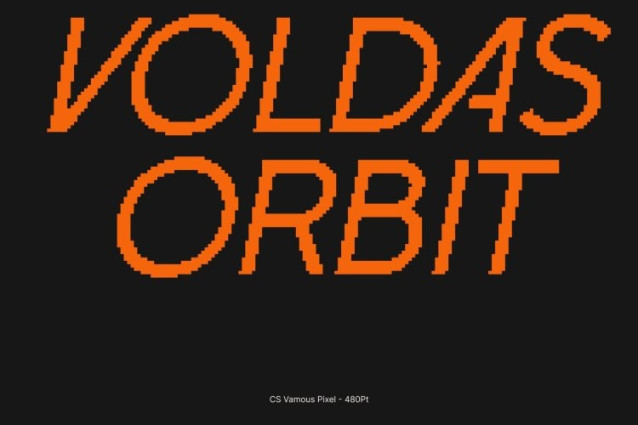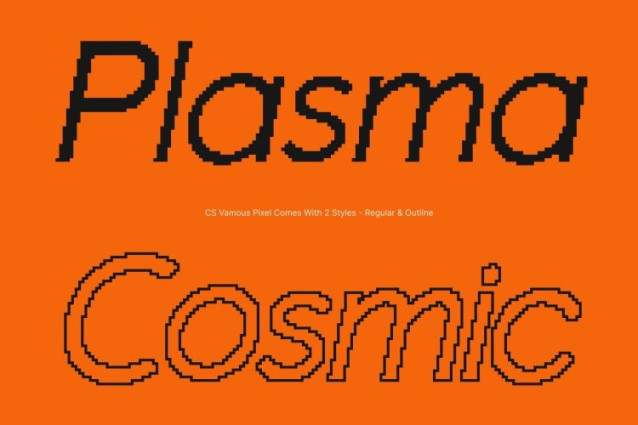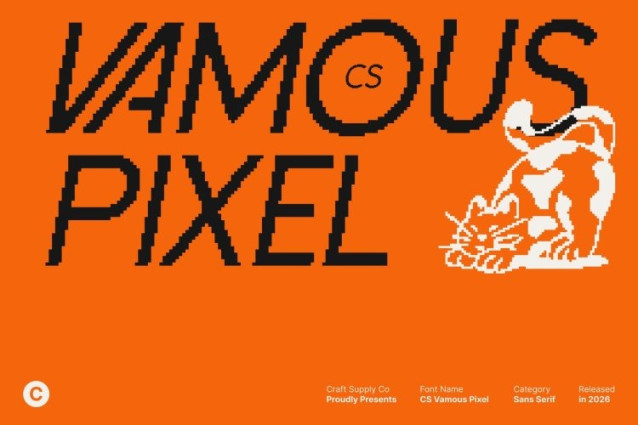
CS Vamous Pixel Font
CS Vamous Pixel Font This is a modern sans serif font built on clean geometric foundations and enhanced with subtle pixel detailing. Its precise shapes and balanced proportions create a fresh, confident look, while the pixel structure introduces an old-digital character inspired by retro screen typography. This fusion results in a font that feels modern and forward-looking, yet nostalgic and tech-driven at the same time.
Clean Structure with Digital Accuracy
Each letterform is crafted with consistent strokes and refined geometry, reinforced by pixel-based construction that adds a crisp, digital texture. The clean structure ensures excellent readability, while the pixel detail gives the font a distinctive visual rhythm reminiscent of early computer displays. This balance of clarity and character makes the font sharp, organized, and visually engaging.
Retro Digital Vibe with Contemporary Style
This font captures the charm of retro 8-bit aesthetics while maintaining a sleek, modern attitude. Its minimalist form keeps the design light and stylish, while the pixel influence brings a nostalgic digital feel. This combination makes the font ideal for modern concepts that want to reference old-school technology without losing contemporary relevance.
Versatile for Logos, Titles, and Digital Displays
Highly adaptable across creative applications, this font performs beautifully in logos, titles, posters, web headers, and promotional designs. Its clean sans serif form guarantees strong legibility, while the pixel detail adds uniqueness and personality perfect for projects seeking a modern, retro-digital visual identity.